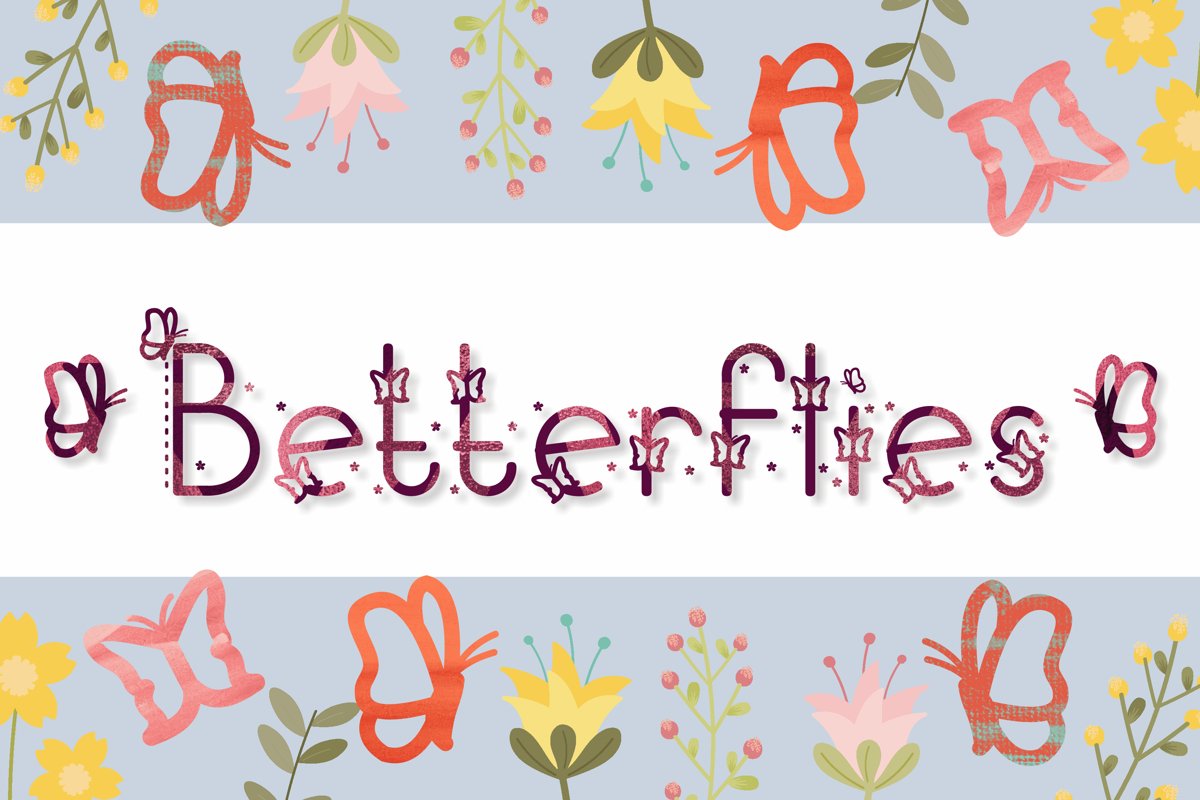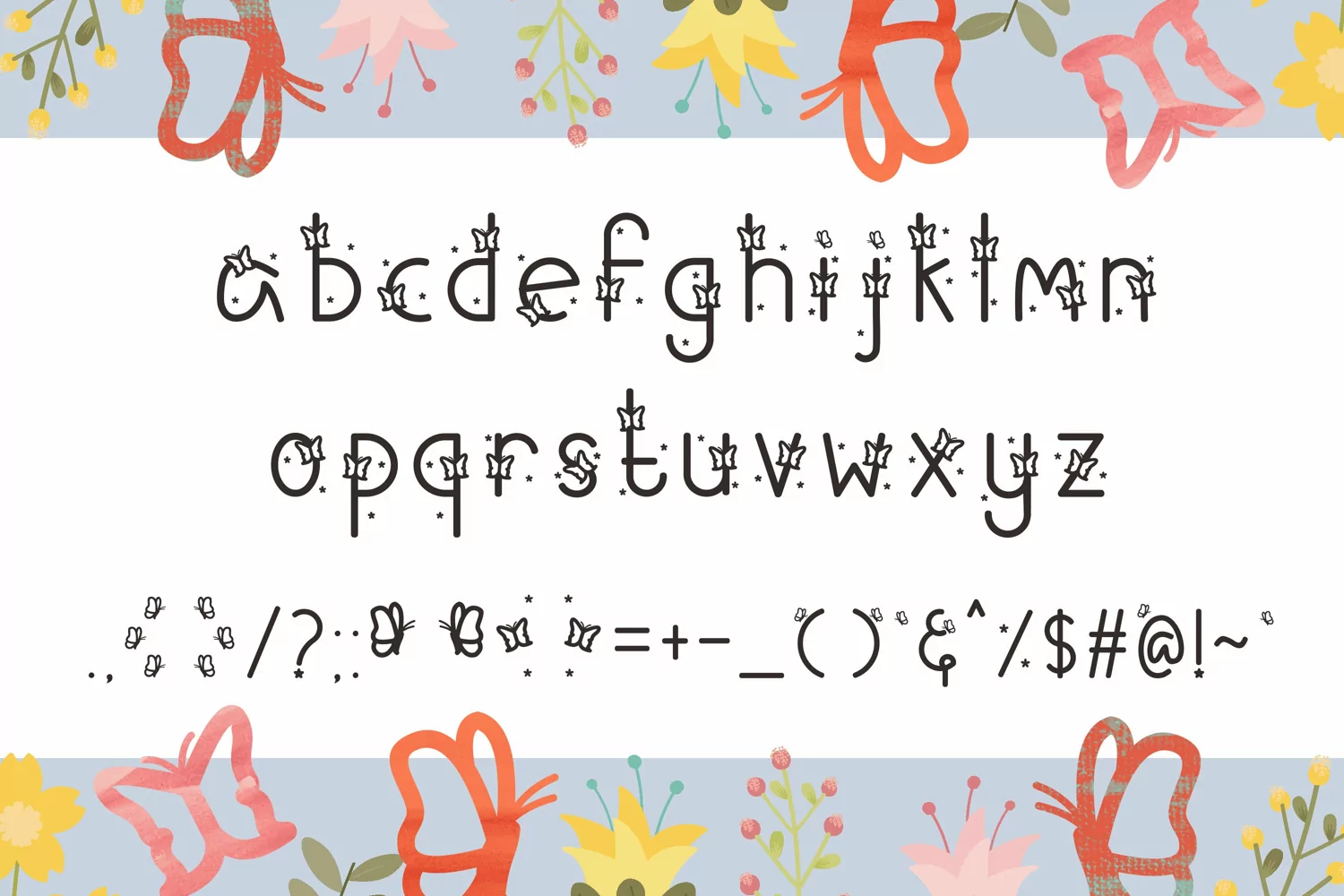
Proudly Present, Betterflies Font.
Betterflies is a fancy decorative font. It features Butterfly - themed characters that will add a cute touch to your projects. Use this amazing font for a wide range of crafty ideas, from letterheads and titles, to stationery. Named betterflies because there are too many fonts titled butterfly or butterflies, so this is made more different.